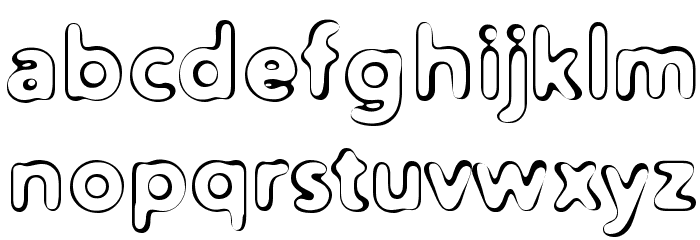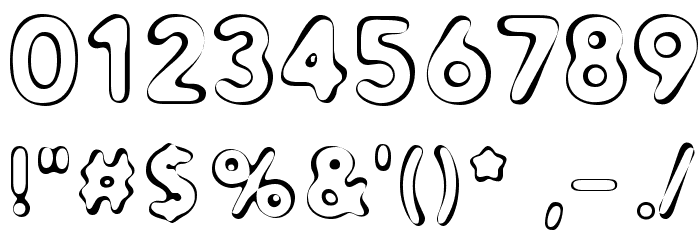
Distro II Squidgey Font
This playful and whimsical font features a unique bubble-like outline that gives each character a sense of depth and dimension. The letters are rounded and soft, with a consistent thickness throughout, creating a friendly and approachable appearance. The font maintains a uniform stroke width, contributing to its cohesive look. Its distinct style makes it stand out, while the clear and legible design ensures readability. The font includes a full set of uppercase and lowercase letters, numbers, and a variety of special characters, making it versatile for different design needs.
A playful, bubble-like font with rounded, consistent strokes.
- Proposed Projects: Ideal for children's books, playful branding, party invitations, and creative posters.
- Overall Style: Playful